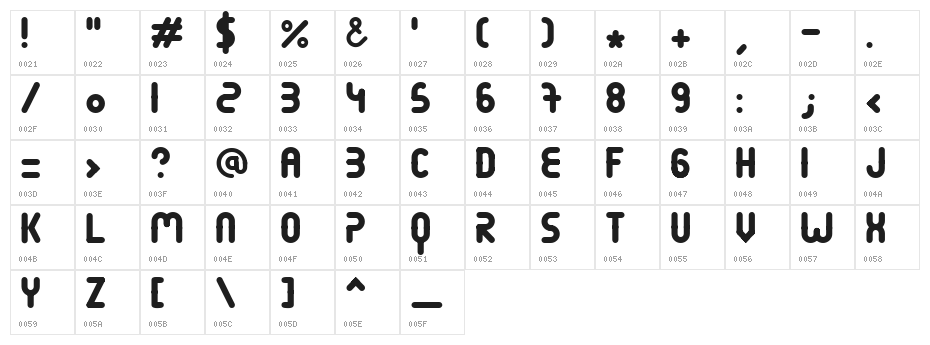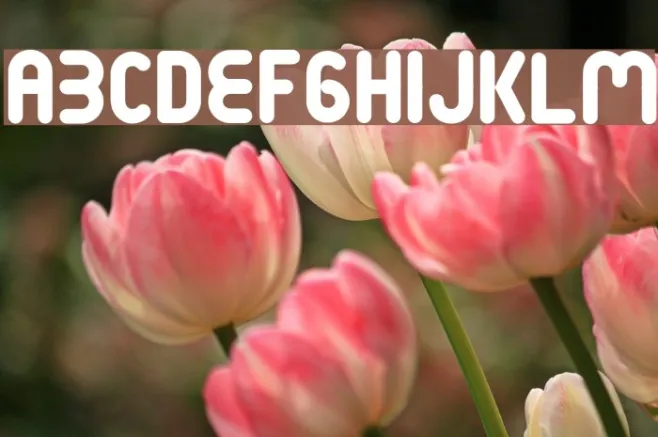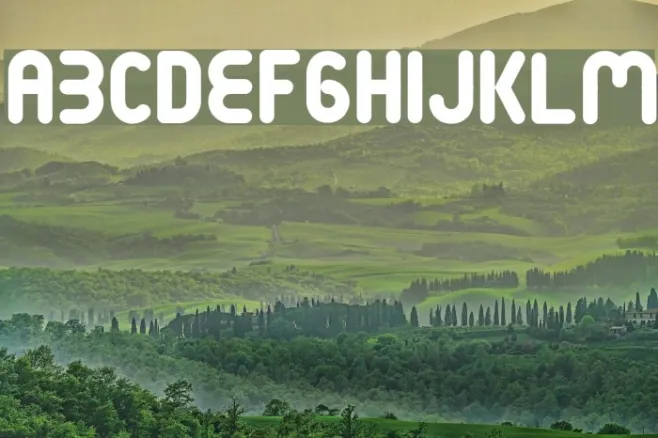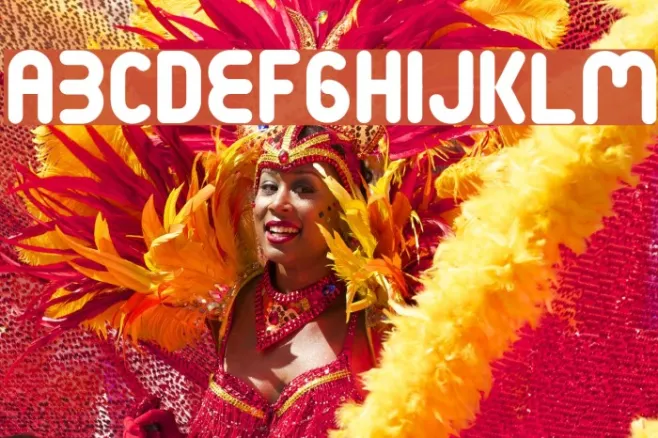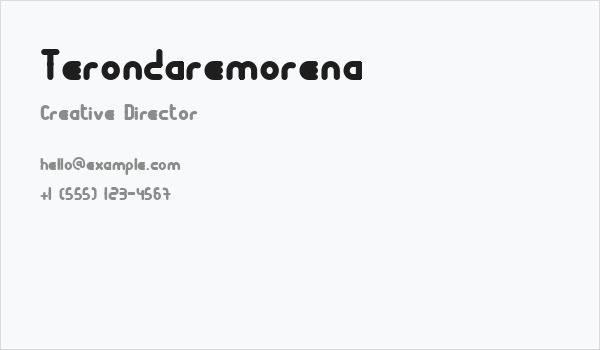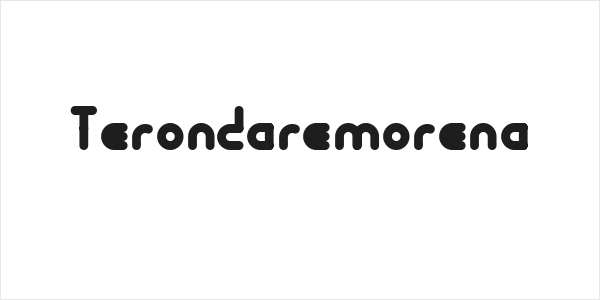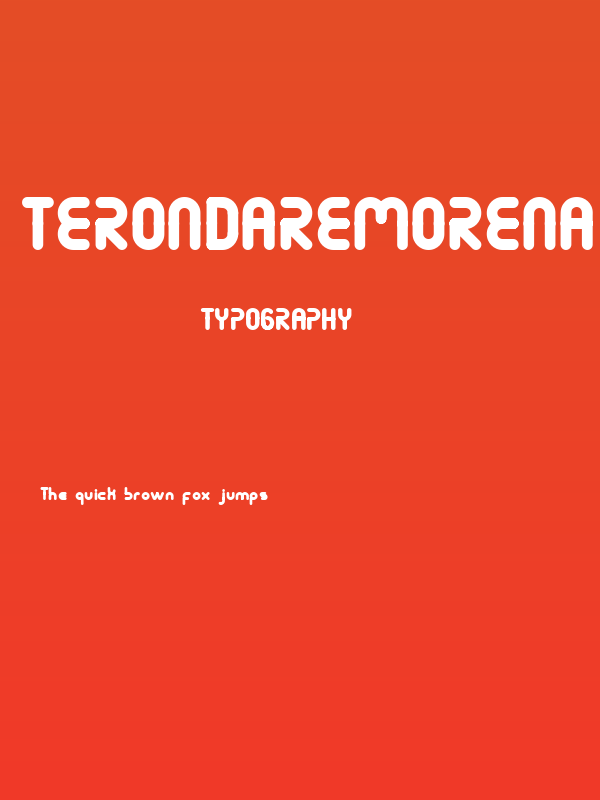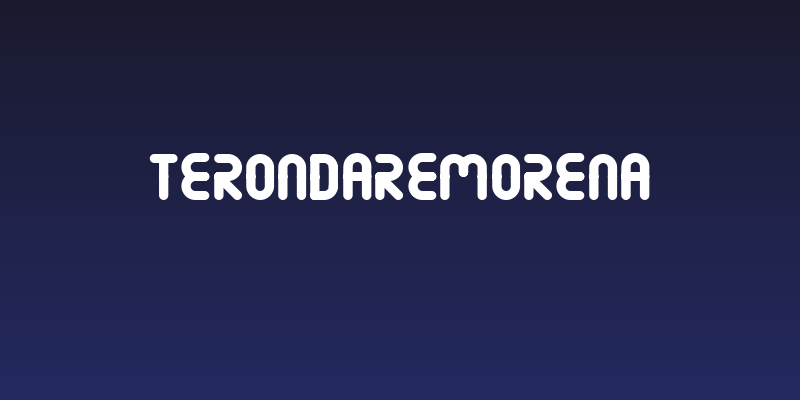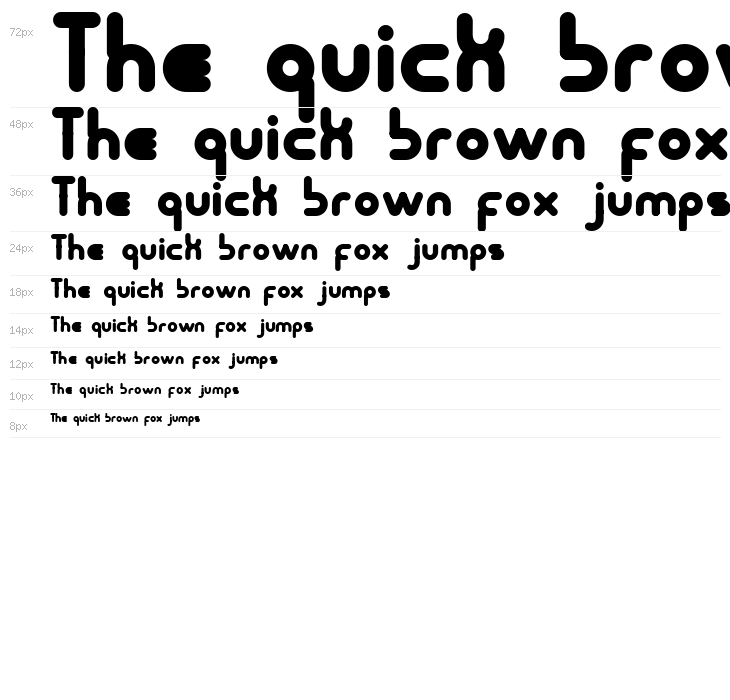
Terondaremorena Font
Terondaremorena Description
This font features a bold, rounded style with a playful and approachable appearance. The characters are uniformly thick, giving a sense of consistency and balance. The rounded edges soften the overall look, making it friendly and inviting. The numbers and special characters maintain the same rounded aesthetic, ensuring cohesion across all elements. This font is highly legible, with clear distinctions between each character, making it suitable for various applications where readability is key.